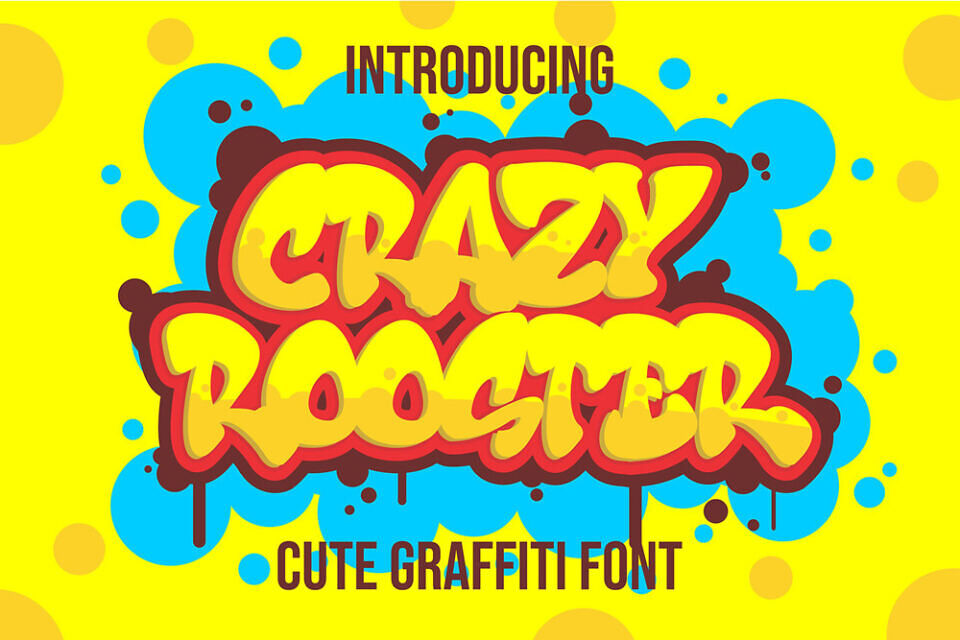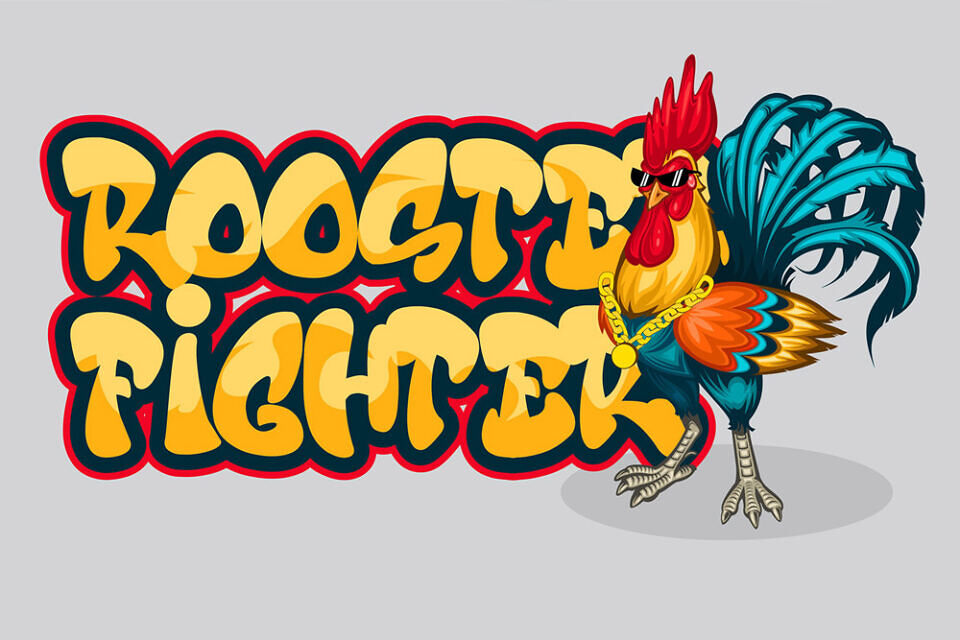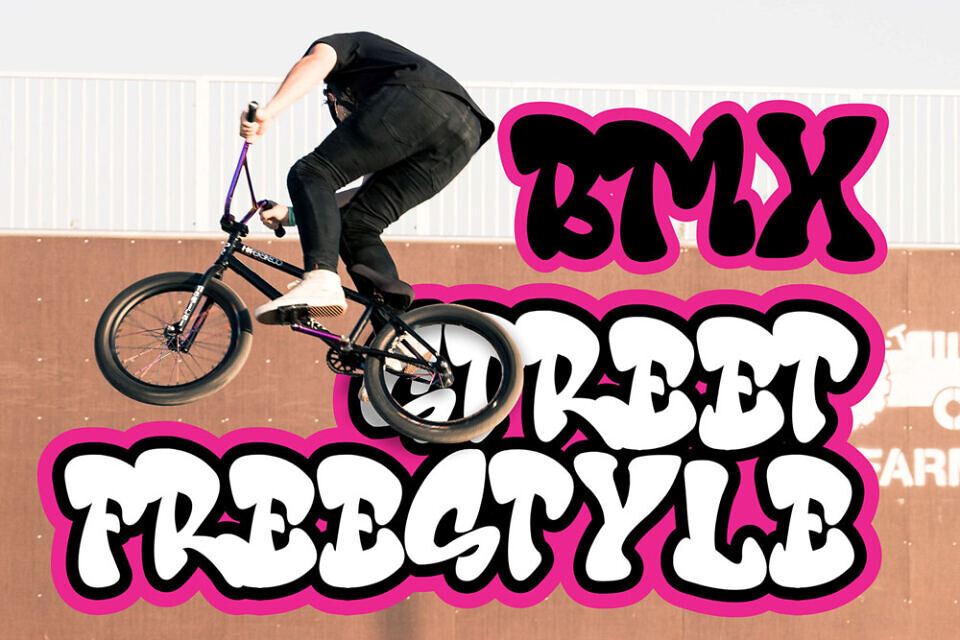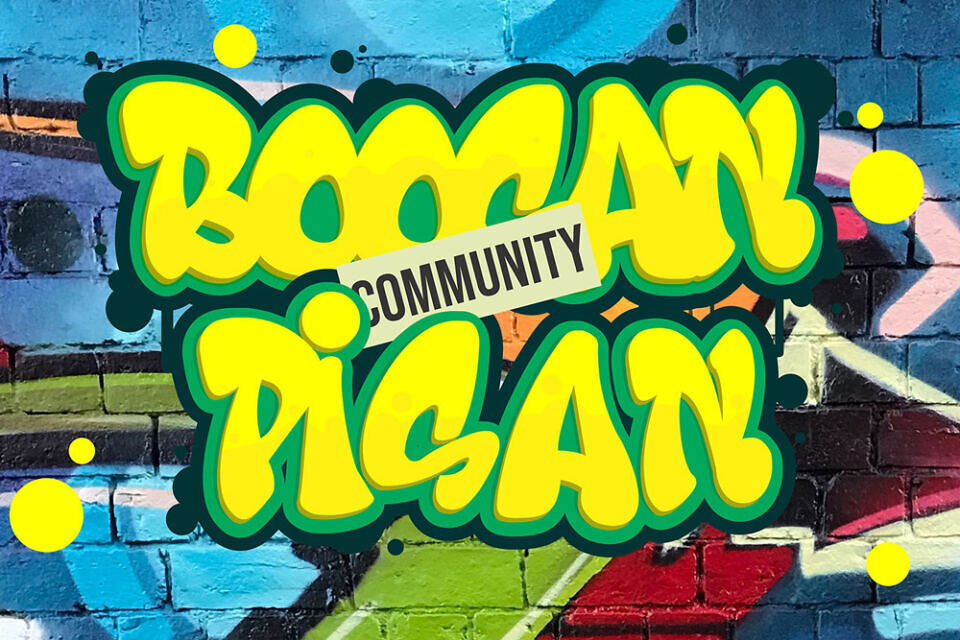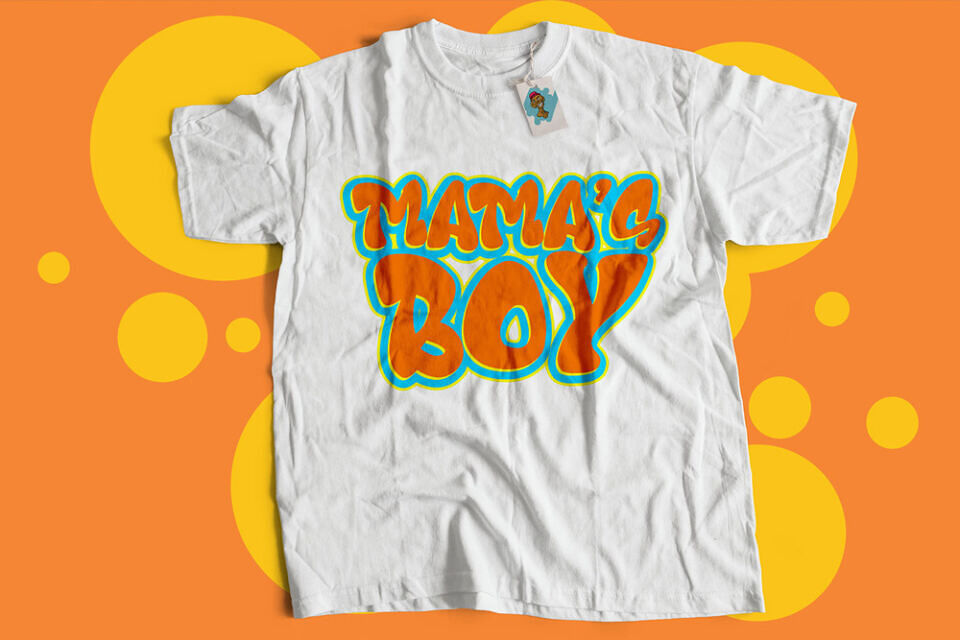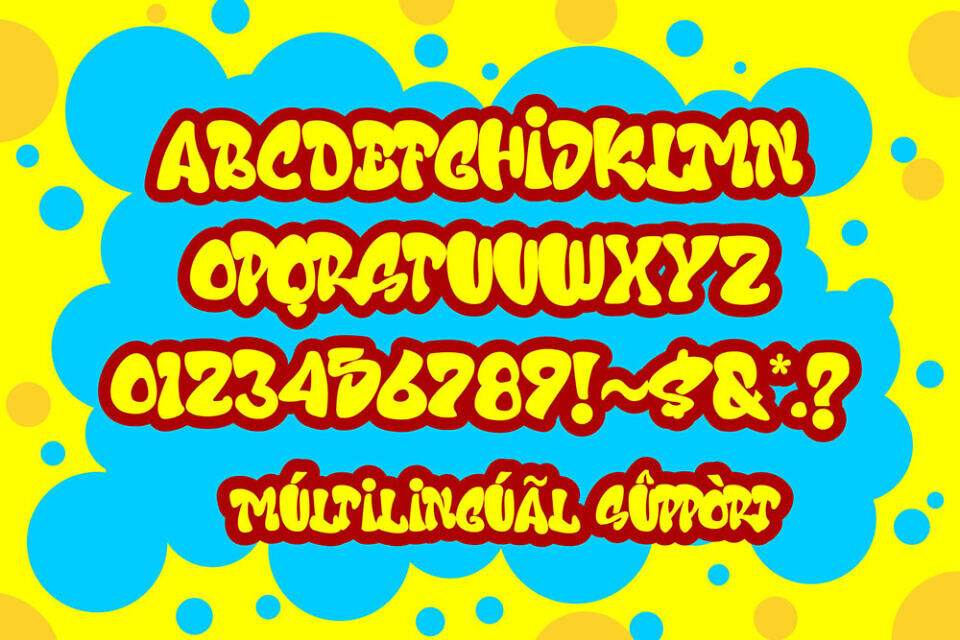
Crazy Rooster is a bold chubby graffiti font inspired by playful street art, urban bubble lettering, underground graffiti culture, and modern streetwear typography trends. Designed with thick rounded letterforms and energetic urban style, this graffiti display font delivers fun visual impact for modern creative projects.
Whether you are creating streetwear branding, gaming graphics, music posters, social media content, or merchandise designs, Crazy Rooster helps your typography stand out with expressive street-inspired personality.